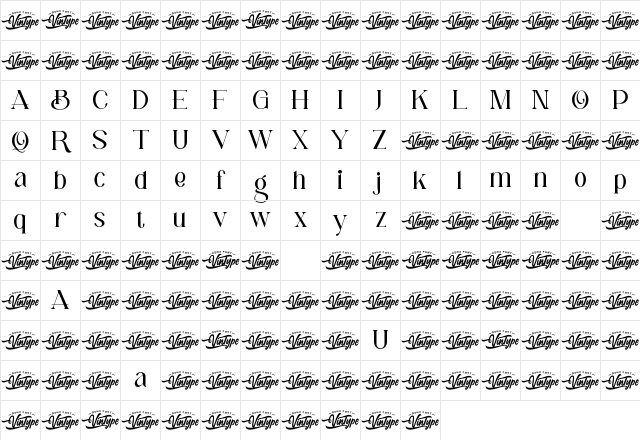
Orlean City Demo Regular Free Font
Orlean City Demo Regular
Foundry: VinType Studio
Designer: Widiyanti & Suci Anita
Design Context for Orlean City Demo
Orlean City Demo is a composed and adaptable typeface that performs quietly and consistently across a wide range of design contexts.